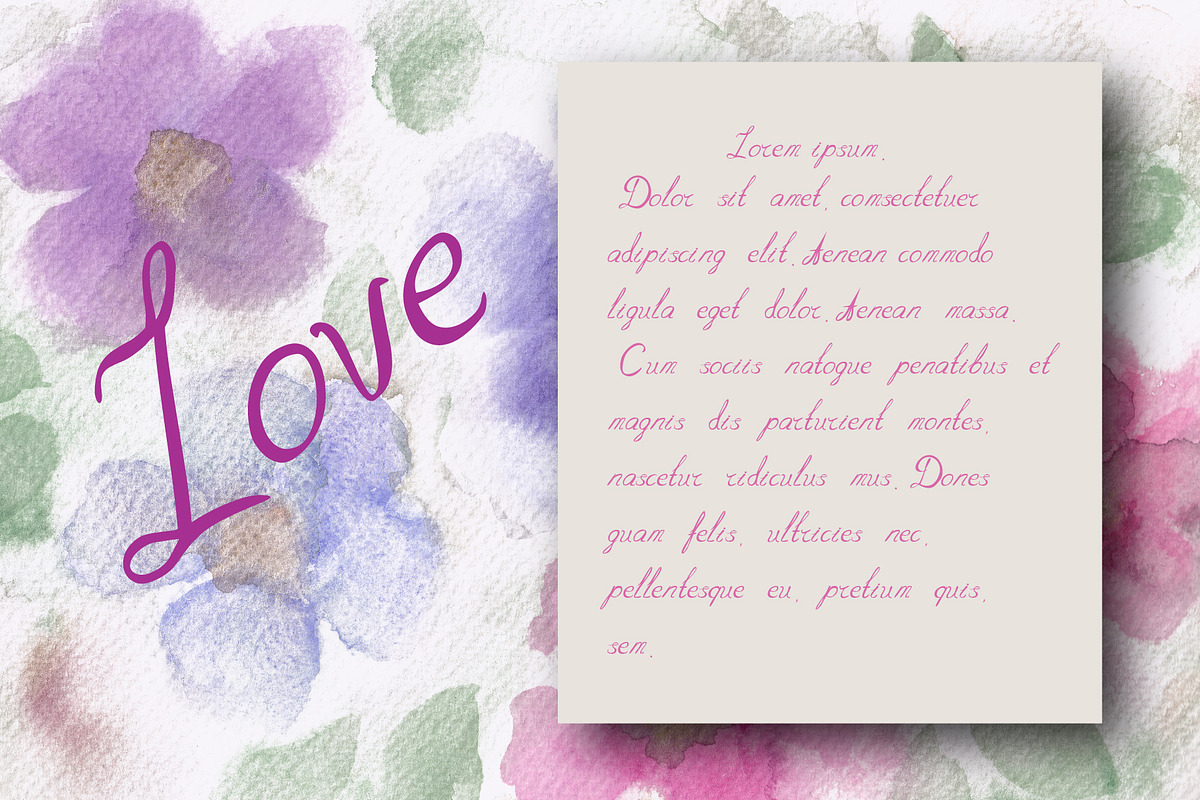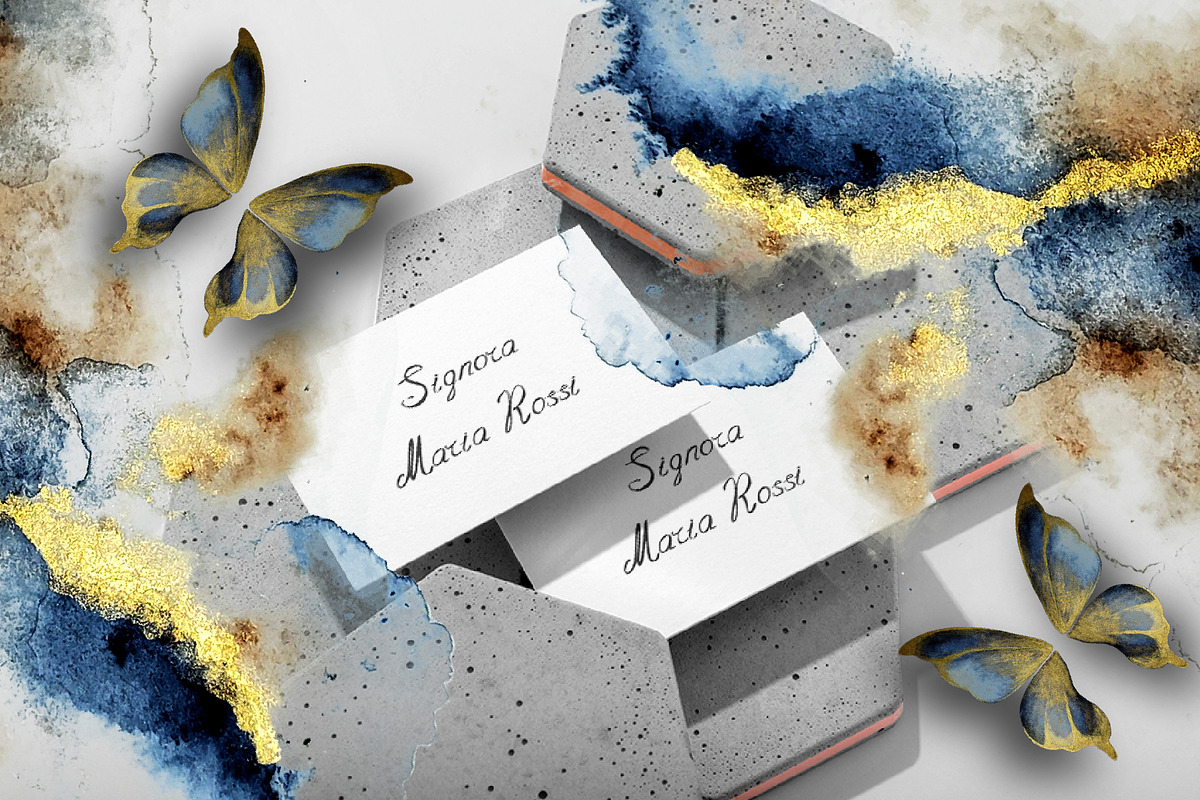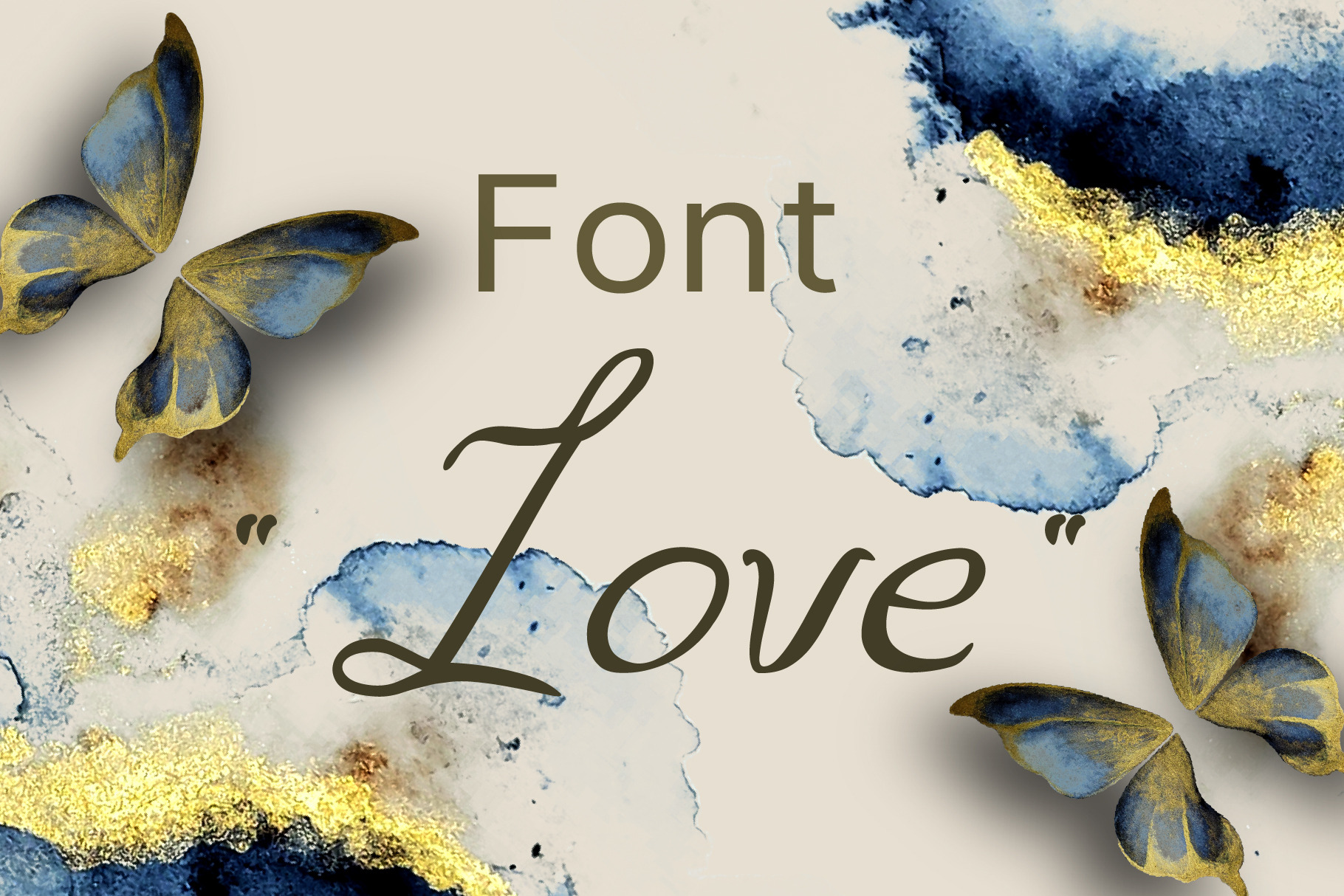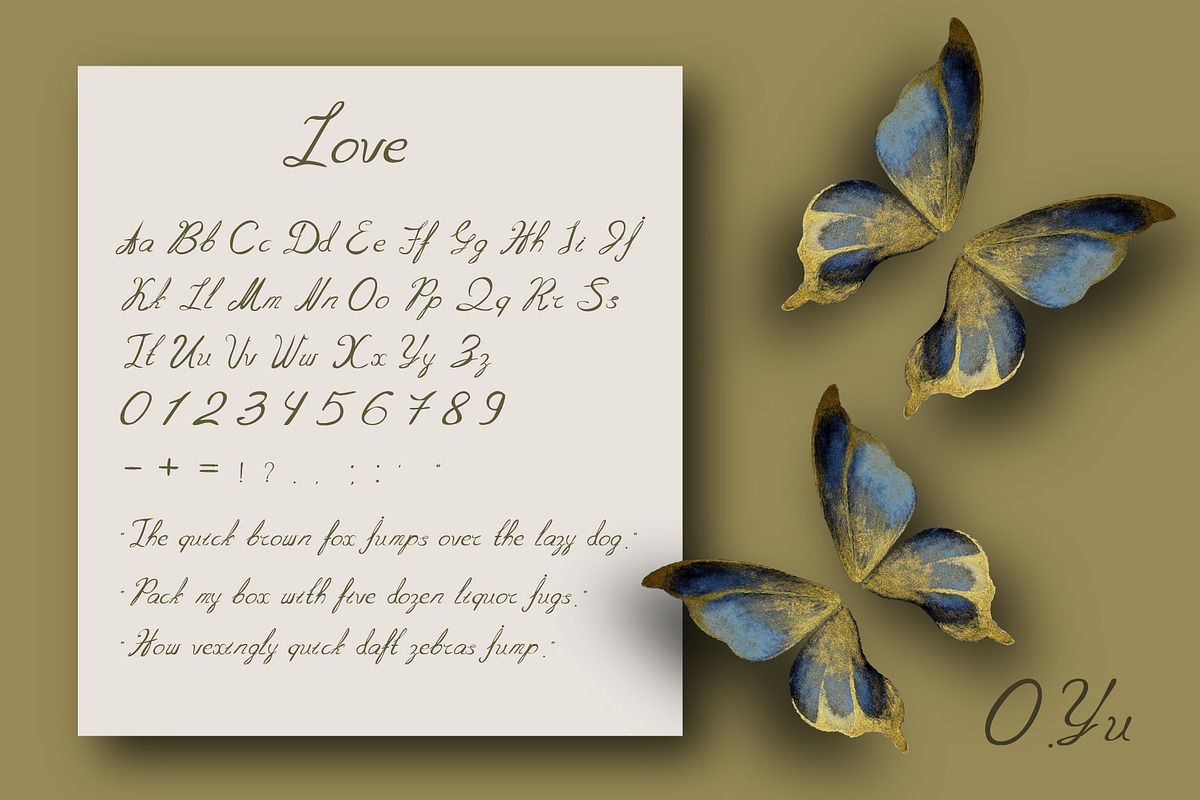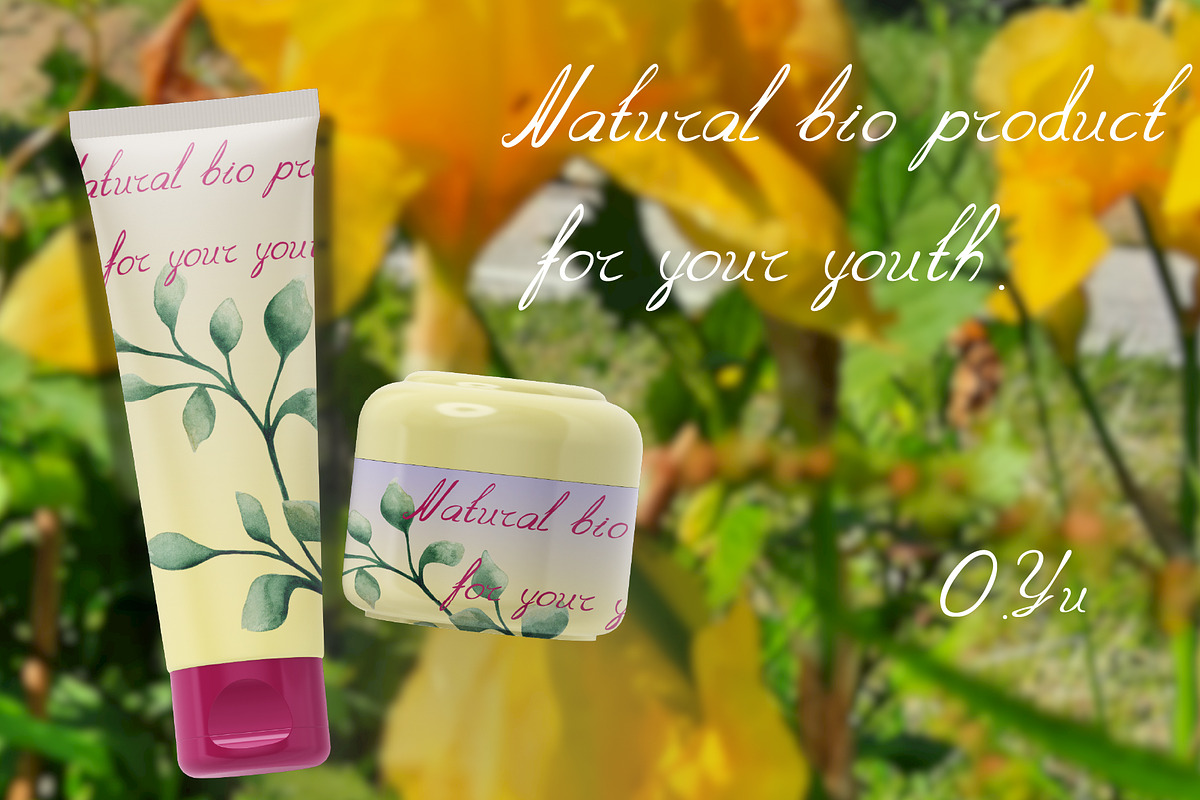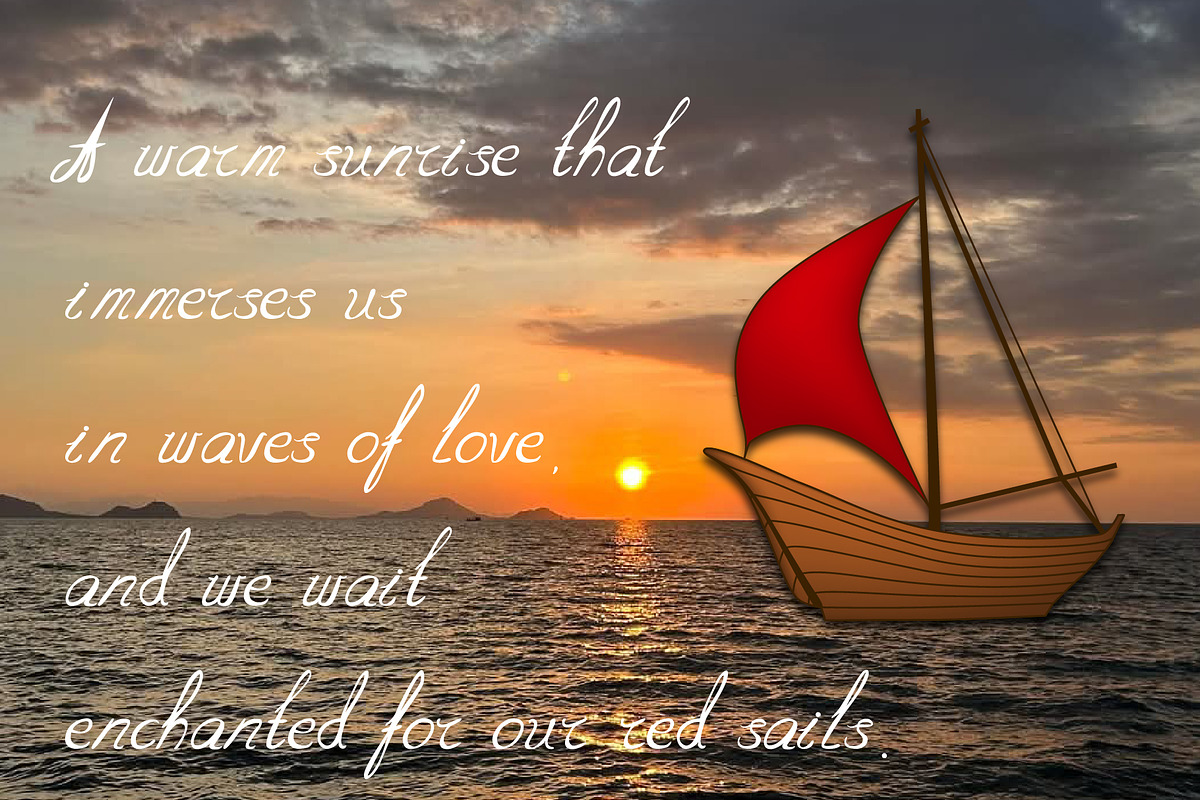
Font "Love".
Font "Love"
Love: A Heartfelt Touch to Your Messages
A font for products and cards created with love, like a note from the heart.
Forget about perfect calligraphy – Love embodies the warmth and sincerity of handwritten notes, created like a message from the heart, as if in a hurry. This slightly chaotic but charming font is ideal for projects that require authenticity and emotional connection.
It contains a full set of uppercase and lowercase letters, numbers, and basic symbols, and easily integrates into any application, allowing you to change the color and size freely.